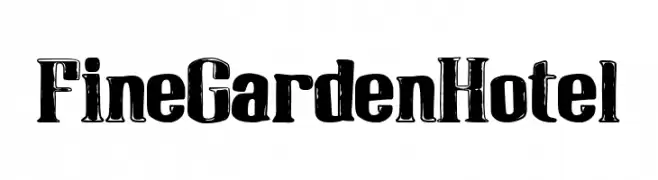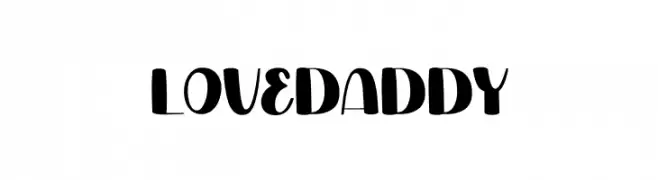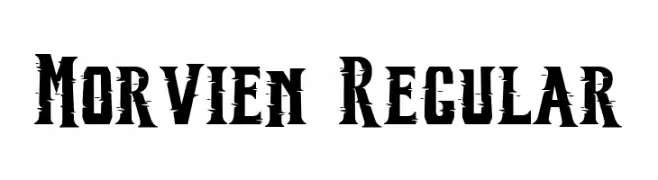
( Fonts by Iconian Fonts )
A bold, angular font with a modern and impactful style.
( Fonts by Iconian Fonts )
A bold, geometric font with strong, angular lines and a modern aesthetic.
( Fonts by Cat.B )
A bold, distressed font with a vintage, industrial feel.
( Fonts by Woodcutter )
A bold, distressed font with a vintage, handcrafted appearance.
( Fonts by Ditatype )
A bold, distressed font with a vintage, rugged appearance.
( Fonts by Andi Moz )
A playful, bold, and handwritten-style font with a modern decorative flair.
( Fonts by Scratchones )
A playful, bold font with rounded edges and a slightly condensed style.
A pixelated, blocky font with a retro digital style.
( Fonts by Alit Design )
A bold, distressed font with sharp serifs and a rugged, edgy style.
( Fonts by Juha Korhonen )
A distressed, collage-style font with a chaotic and artistic appearance.